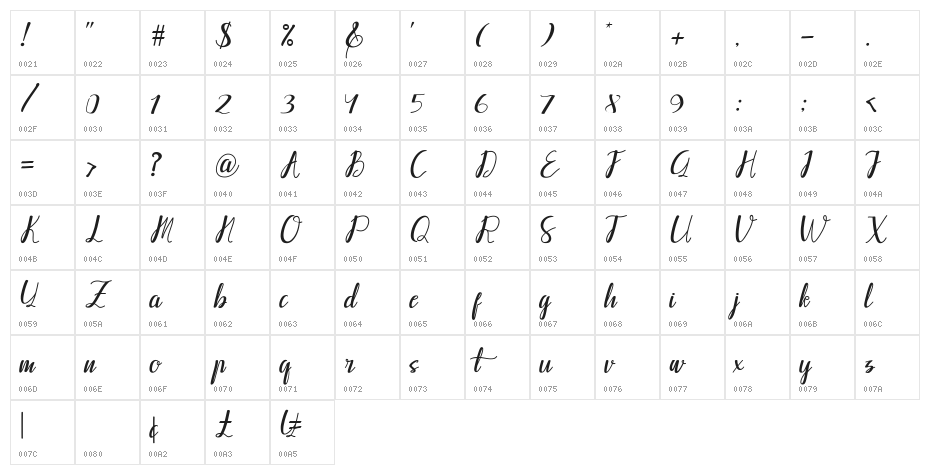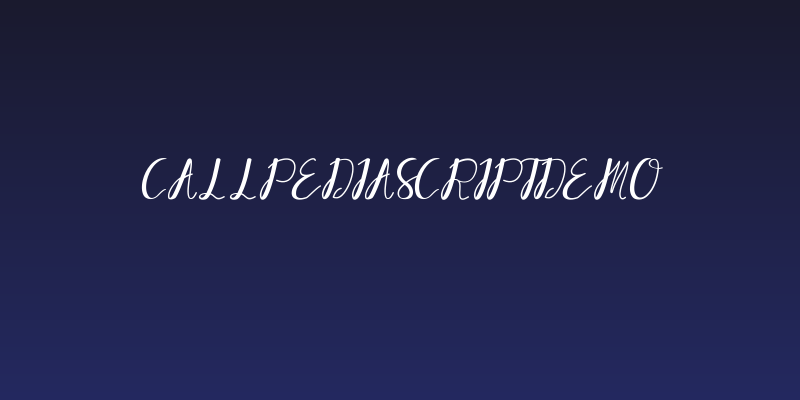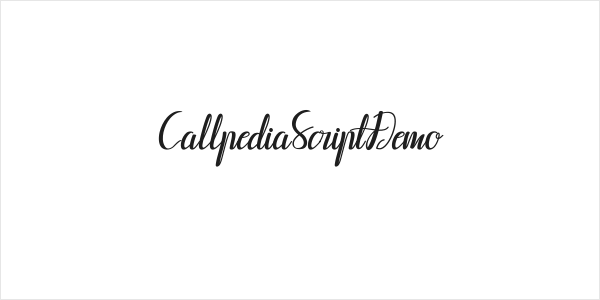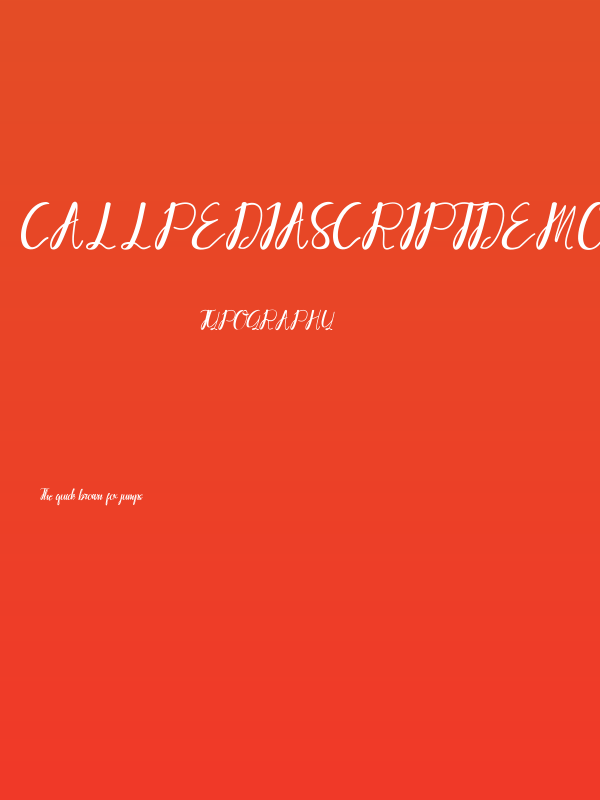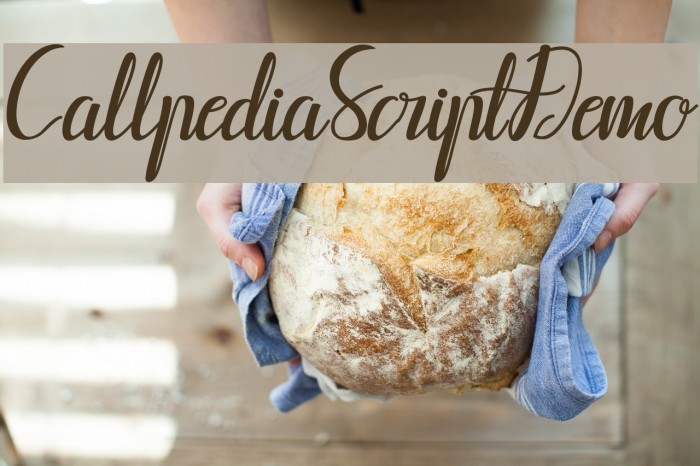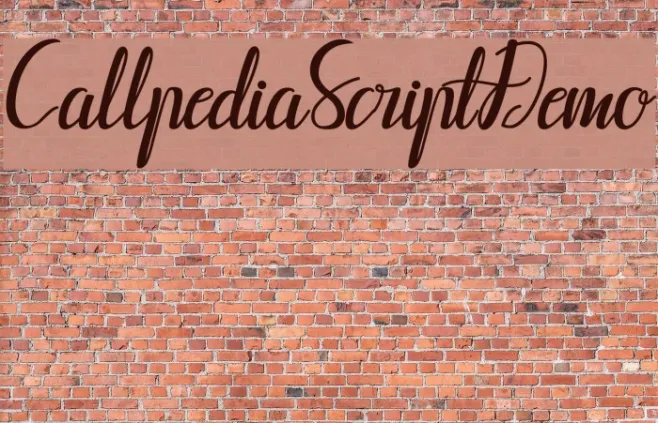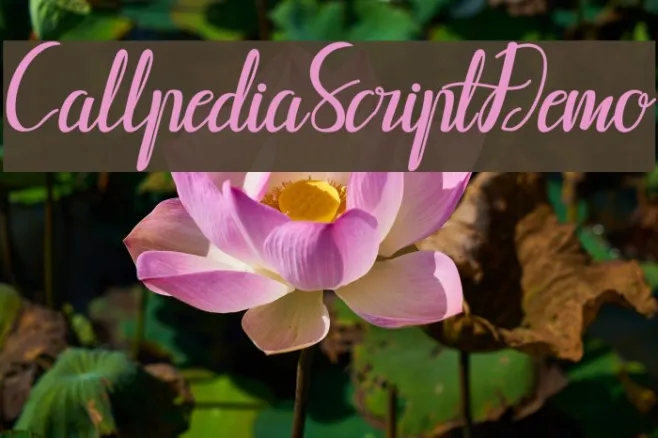
CallpediaScriptDemo Font
CallpediaScriptDemo Description
This font features a dynamic and elegant script style with a flowing, cursive design. The uppercase letters are tall and slender, with distinctive loops and flourishes that add a touch of sophistication. The lowercase letters maintain a consistent flow, creating a harmonious and connected appearance. The numerals are stylish and complement the overall script aesthetic. Special characters are designed with the same attention to detail, ensuring they blend seamlessly with the letters. This font is perfect for projects that require a touch of elegance and creativity.